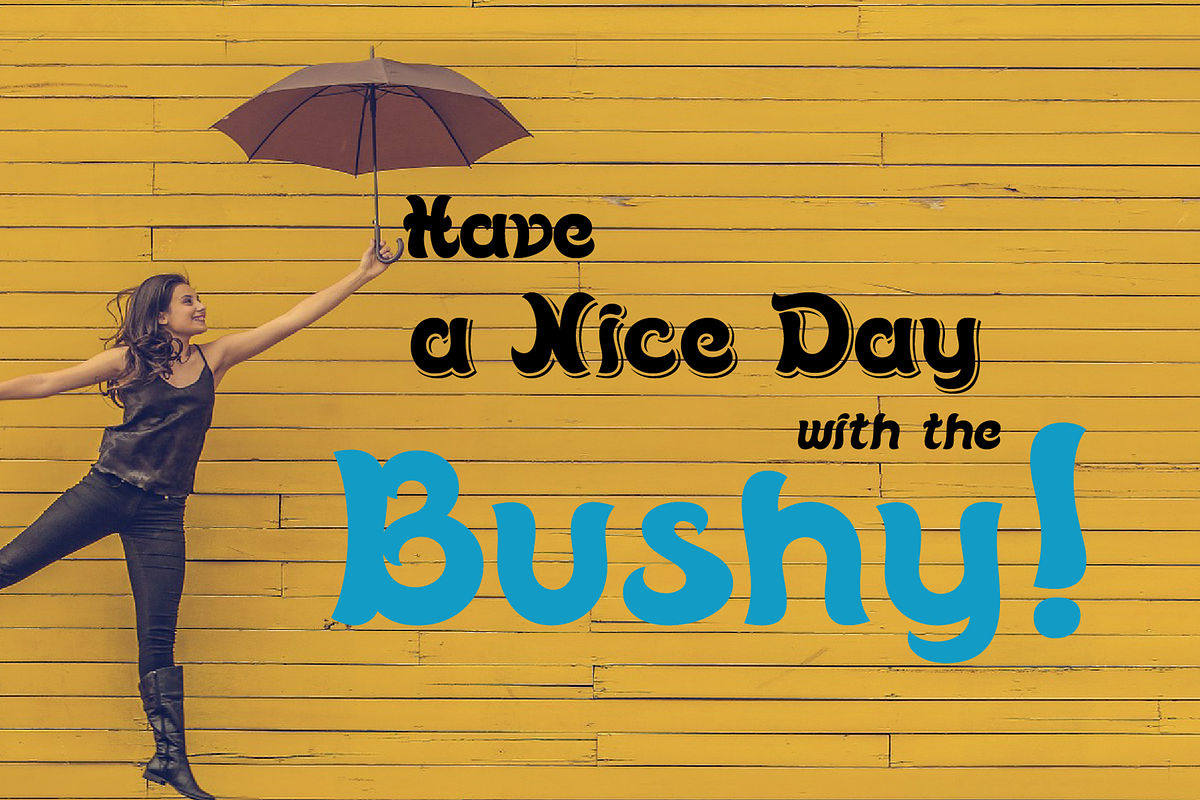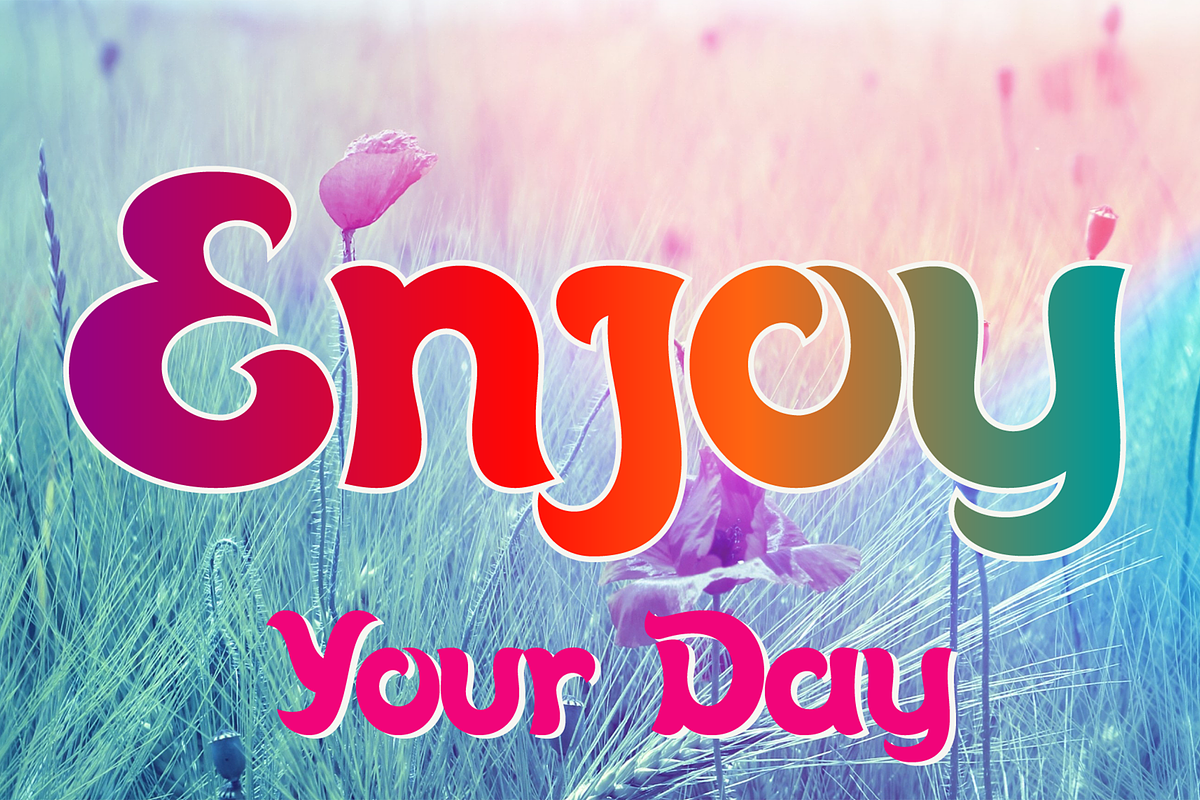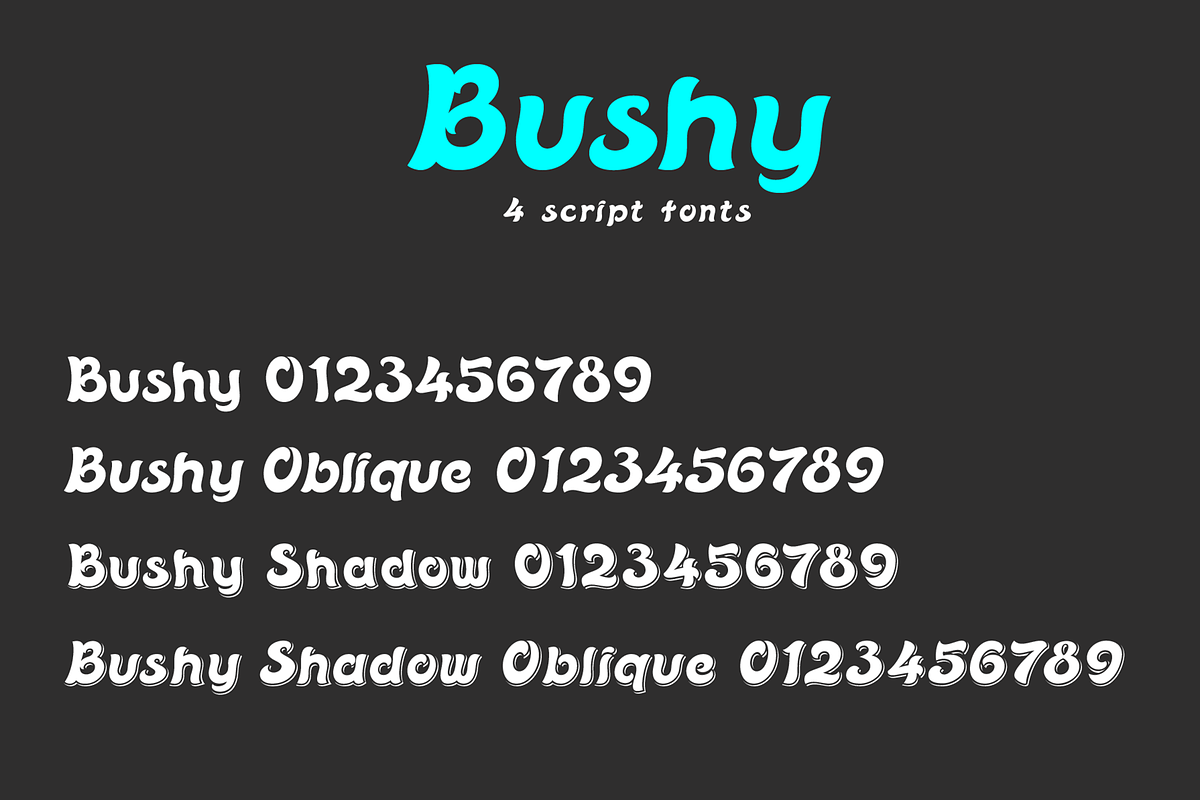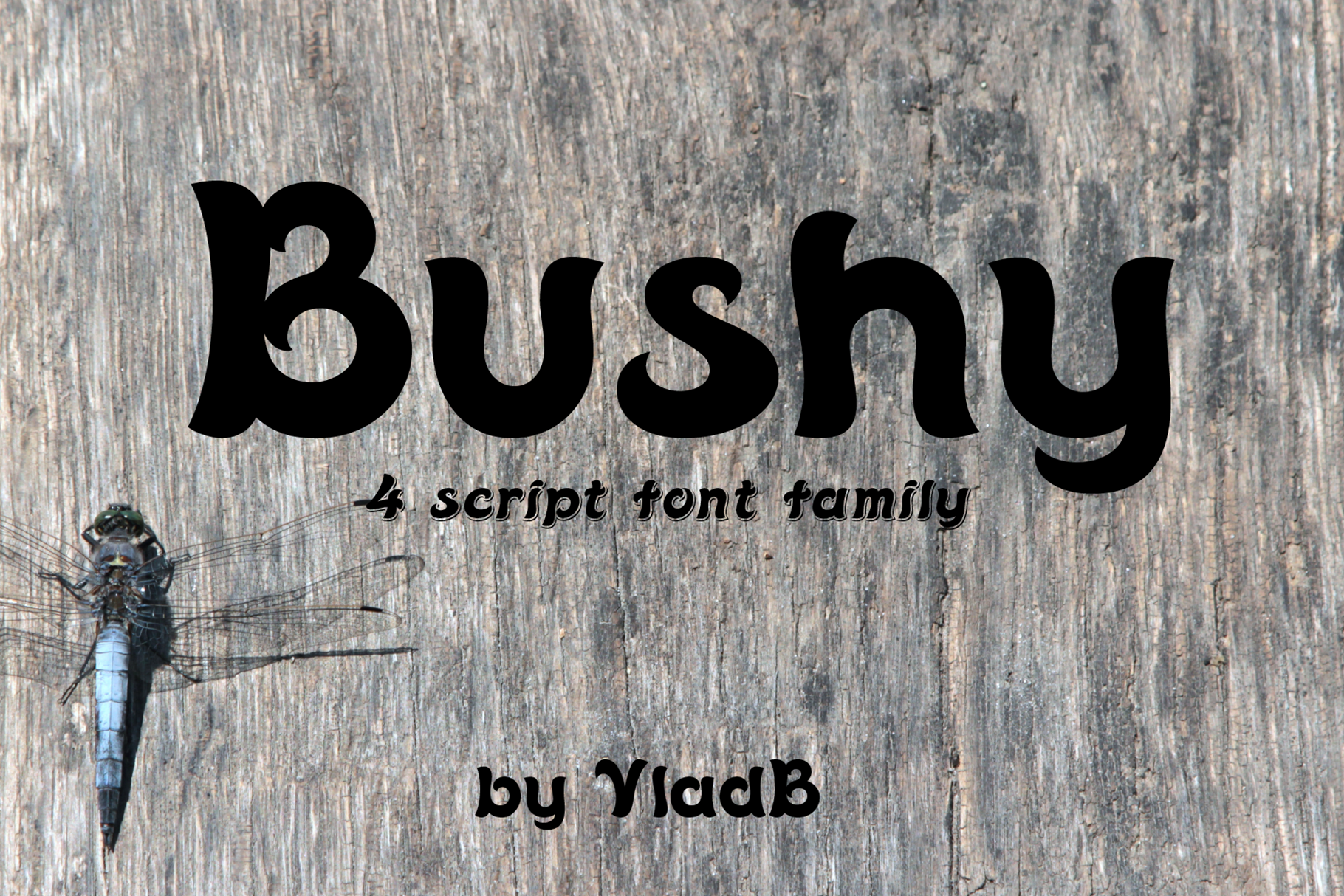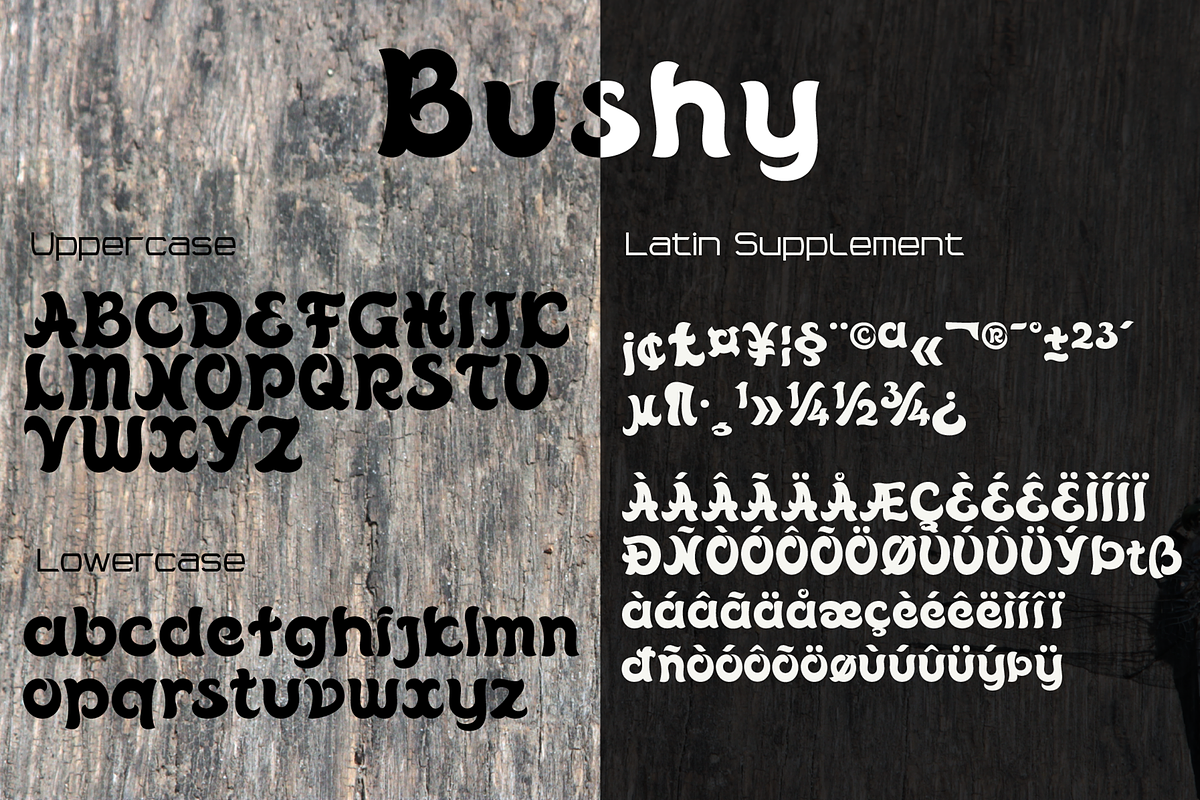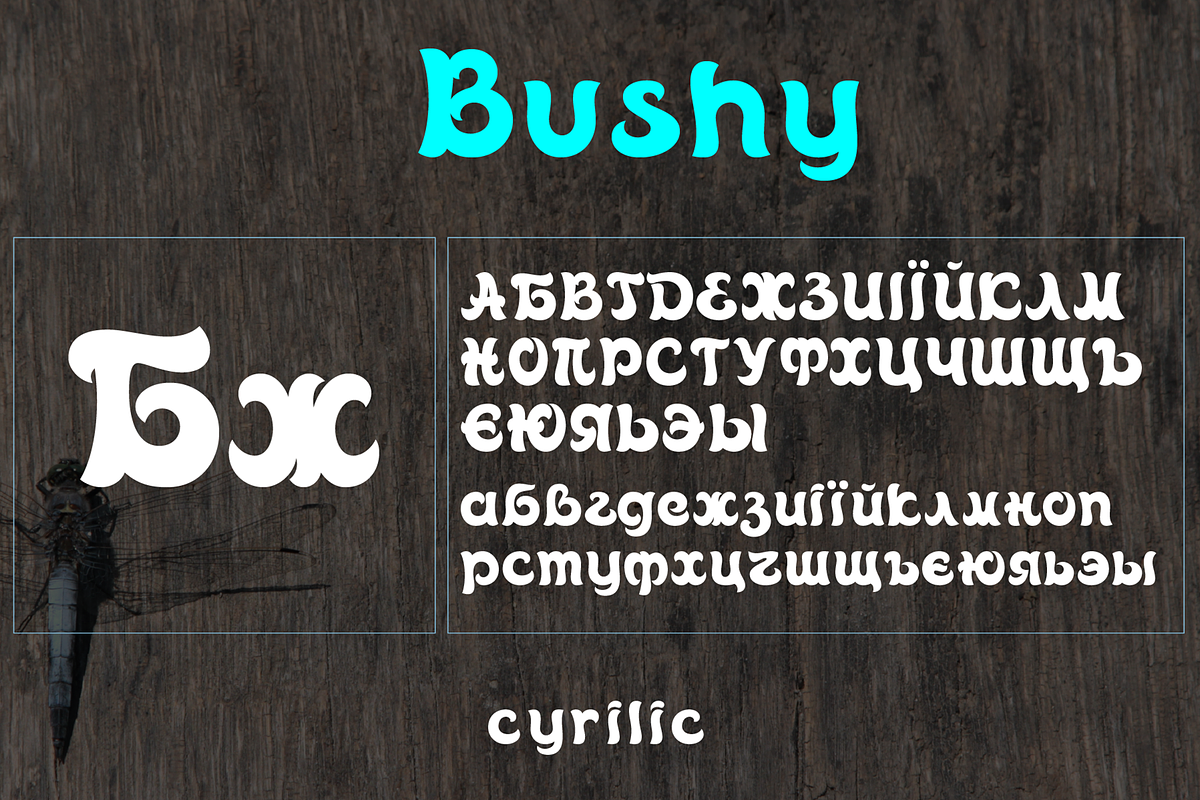
Bushy font family
Bushy is a clean and lining brush script. It is available with four different styles: Regular, Italic (Oblique), Shadow, Shadow Italic (Oblique). Bushy fonts are swashy and decorative, fun and cheerful, it will easily revive your design.
The family has an Latin Supplement and Cyrilic characters.